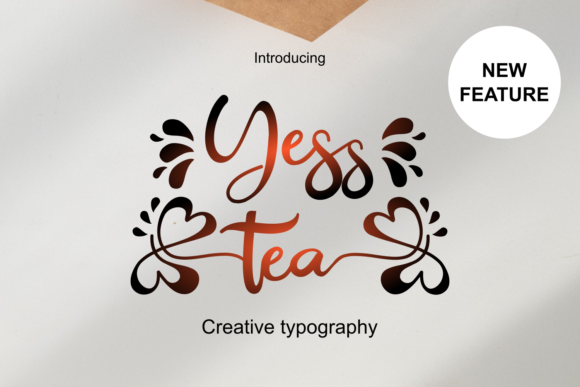
Let your designs bask in the charming allure of Yesstea, a script font that weaves a tapestry of sophistication and elegance. Its graceful curves, reminiscent of a flowing river, will elevate your projects to new heights of beauty. With Yesstea, your words will dance across the page, captivating your audience with their refined charm.
Adorn your designs with the exquisite details and stylish alternates that Yesstea has to offer. Create breathtaking monograms that exude a timeless appeal. Let your invitations, logos, greeting cards, and social media posts radiate with a touch of class and exclusivity.
Yesstea's PUA encoding opens up a world of creative possibilities. With ease, access the full repertoire of glyphs and swashes that this font holds. Unleash your imagination and let your designs blossom with a touch of individuality.
Whether you're a seasoned designer or just starting your creative journey, Yesstea is the perfect companion. Its user-friendly nature ensures a smooth experience, allowing you to focus on what truly matters – expressing your artistic vision.
Embrace the allure of Yesstea and embark on a creative adventure that will leave a lasting impression. Let your designs radiate with sophistication, elegance, and a touch of playful charm.